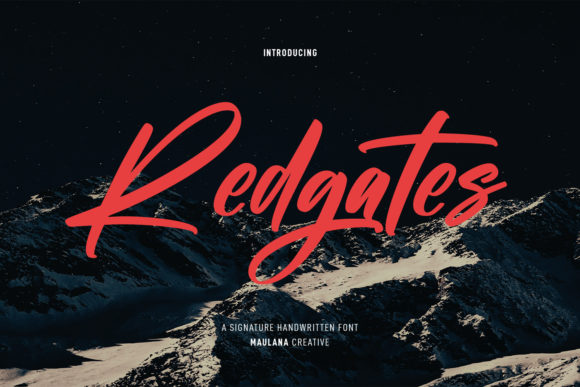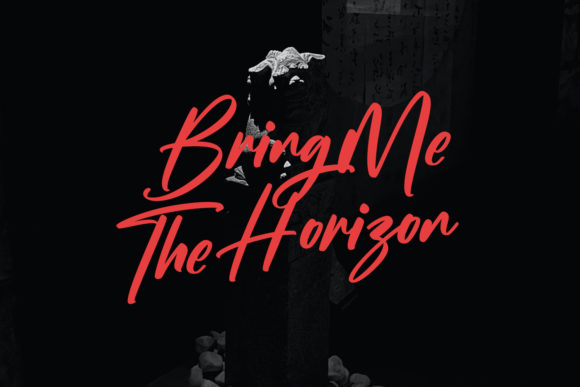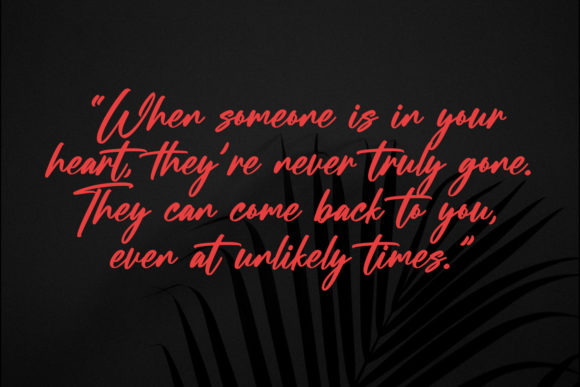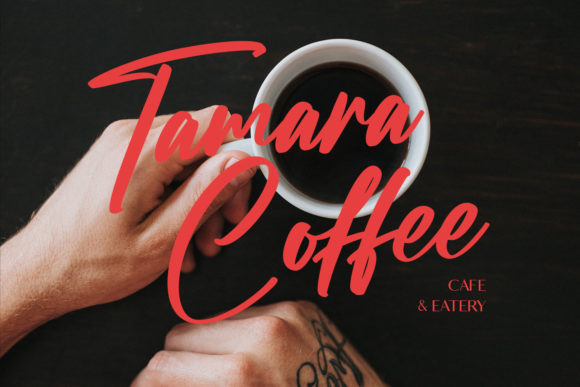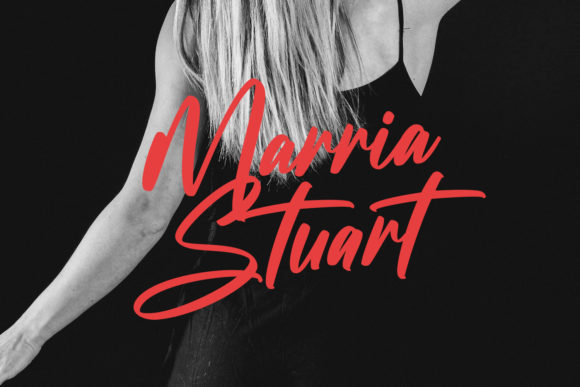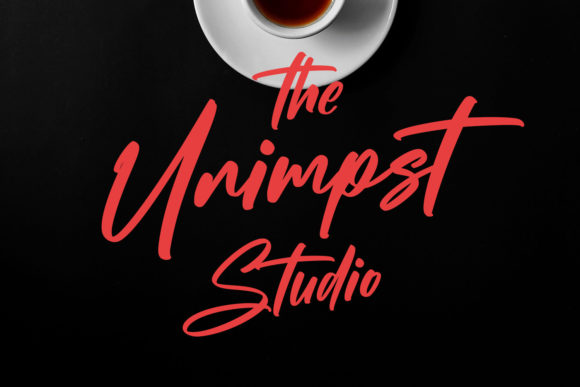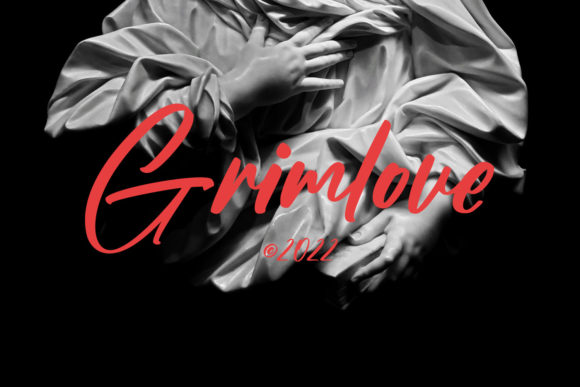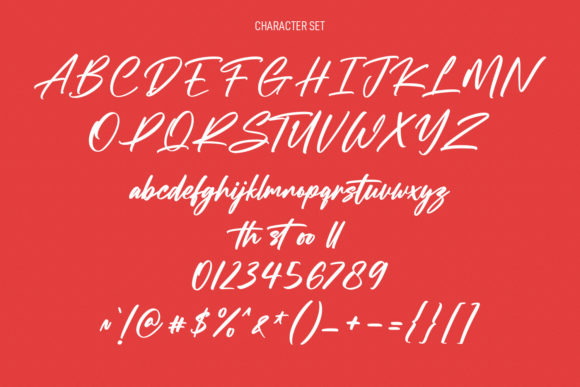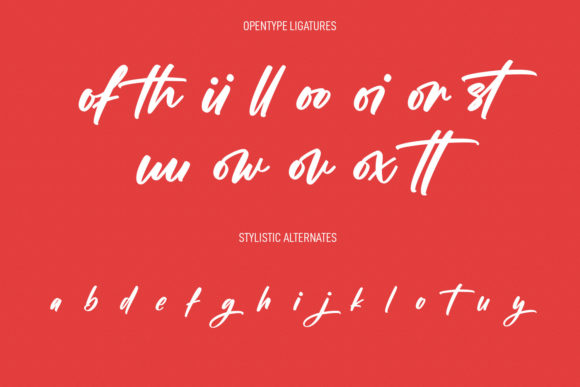
Redgates Font
About Redgates Font
Redgates is a fancy and paint brushed handwritten script font designed to make a bold statement. This distinctive typeface features prominent contrast strokes, playful characters, and includes ligatures and alternates to add versatility to your designs. Redgates is a perfect choice for product packaging, branding projects, magazine covers, social media graphics, wedding materials, or any design where you want to express words with a dynamic and stylish flair against the background.
The bold contrast strokes in Redgates give it a strong and impactful presence, making it suitable for designs that need to grab attention. The fun characters and added ligatures provide a touch of playfulness, making it versatile for a range of creative applications.
Whether applied to product packaging for a vibrant and eye-catching look, used in branding projects for a unique and memorable logo, or featured on magazine covers and social media for a modern and dynamic feel, Redgates stands out as a font that brings energy and style to your designs.
In summary, Redgates is more than just a font; it’s a fancy and paint brushed handwritten script that adds flair and personality to your projects. Its bold contrast, fun characters, and flexibility with ligatures make it an excellent choice for expressing words in a dynamic and stylish manner across various design contexts. With Redgates, your creative endeavors are bound to make a lasting impression.